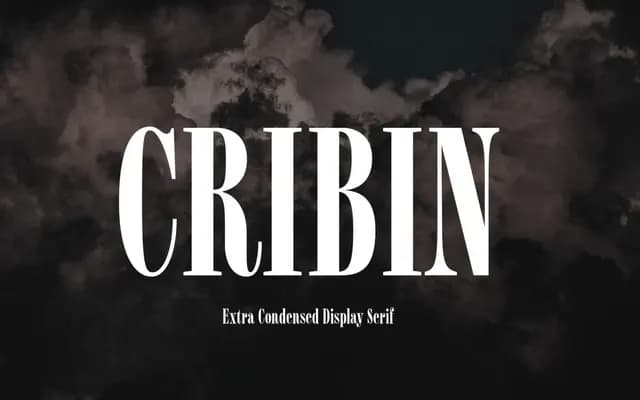
Cribin Serif Display font
Cribin Serif Display font specimen from Colt Type
A condensed, high-contrast display serif drawing on 90s grunge music and vintage letterpress traditions for use in logos, headlines and poster work.
Cribin combines strong serifs and pronounced stroke contrast in a condensed form suited to headlines, logotypes and editorial display work. The aesthetic references 90s grunge music culture and classic letterpress printing, giving it a rough-edged character distinct from conventional display serifs. Sold as a single style, it is positioned for branding, magazine covers and web or print projects where attitude and period flavour are the priority.
A high-contrast condensed serif designed explicitly for display use, drawing on vintage letterpress and grunge aesthetics rather than text setting traditions.